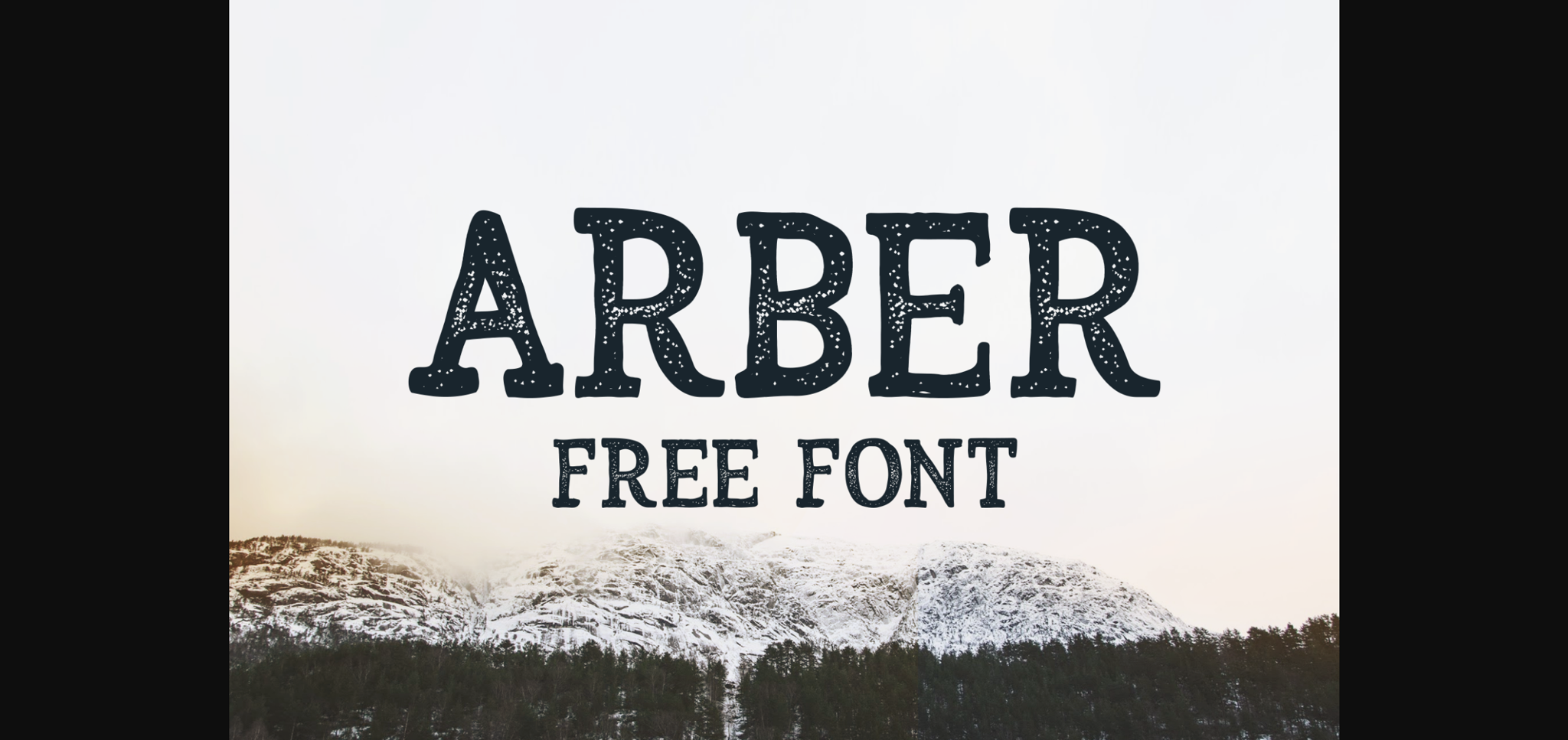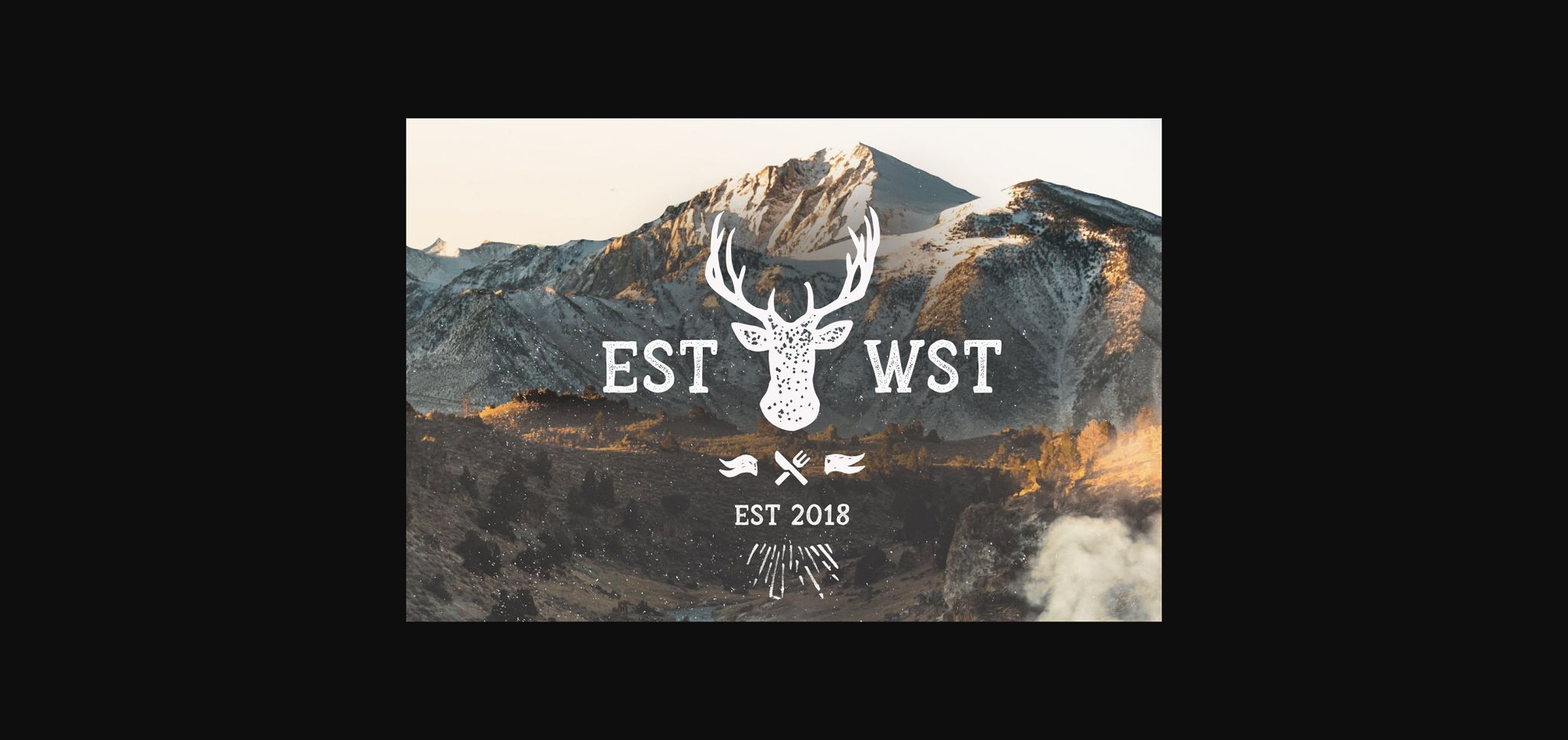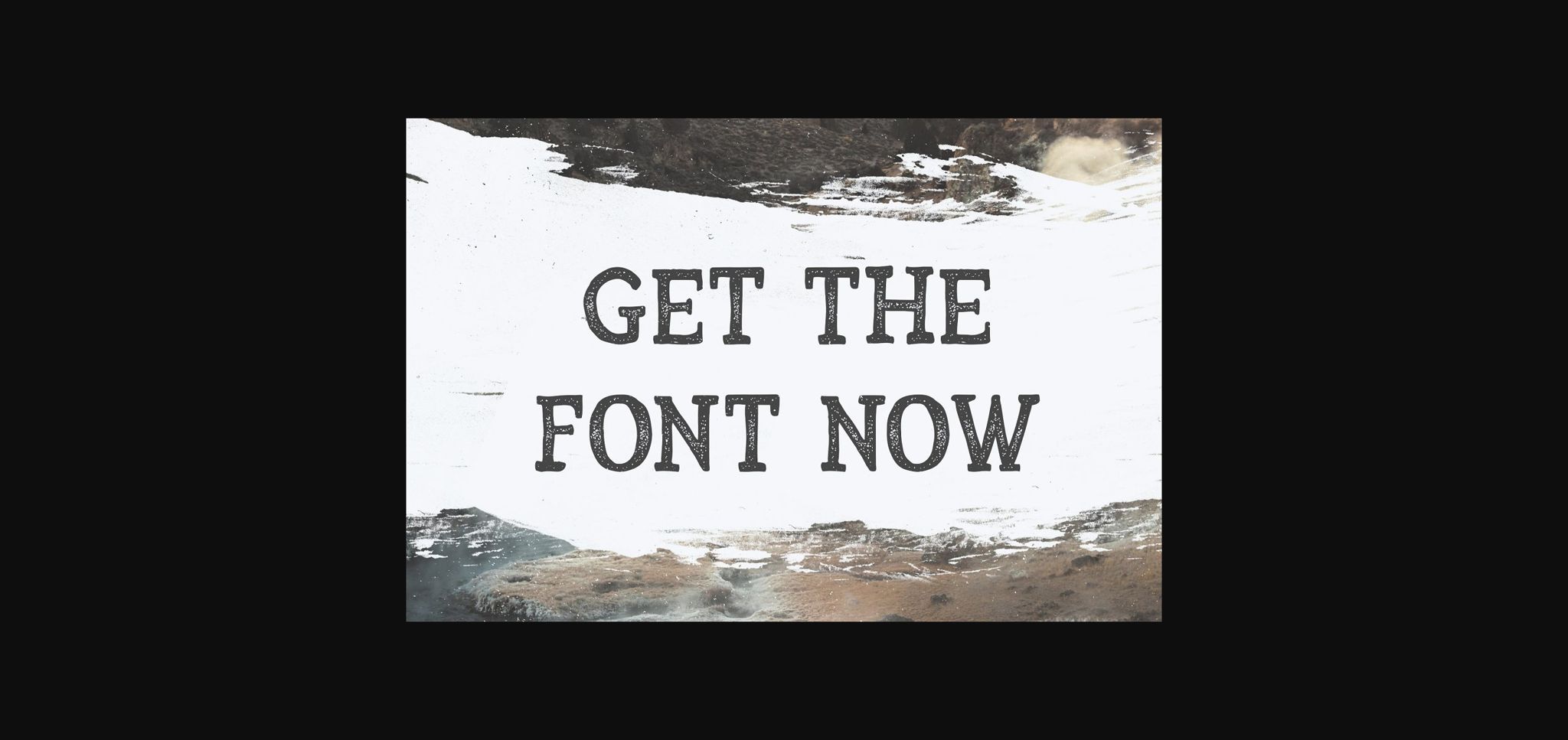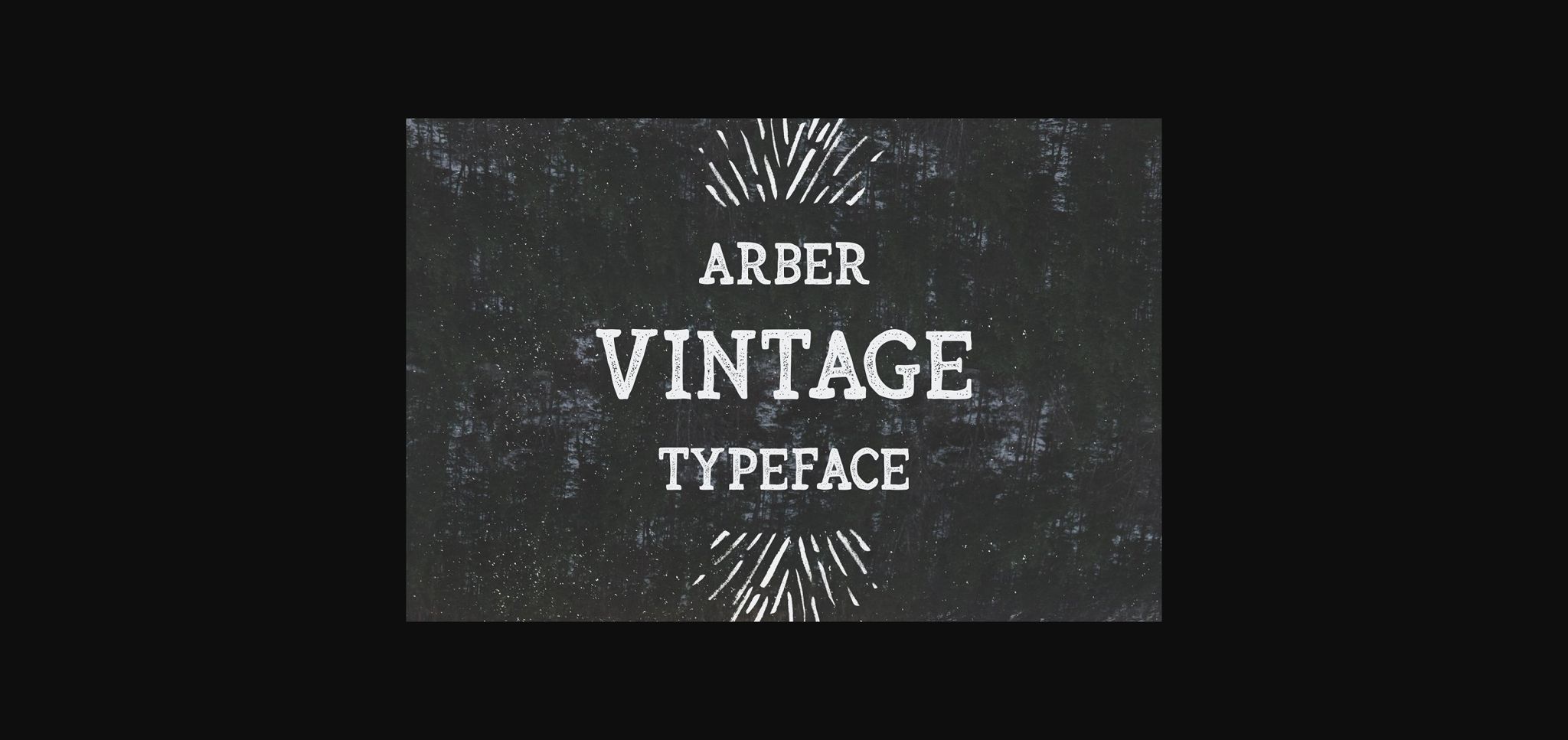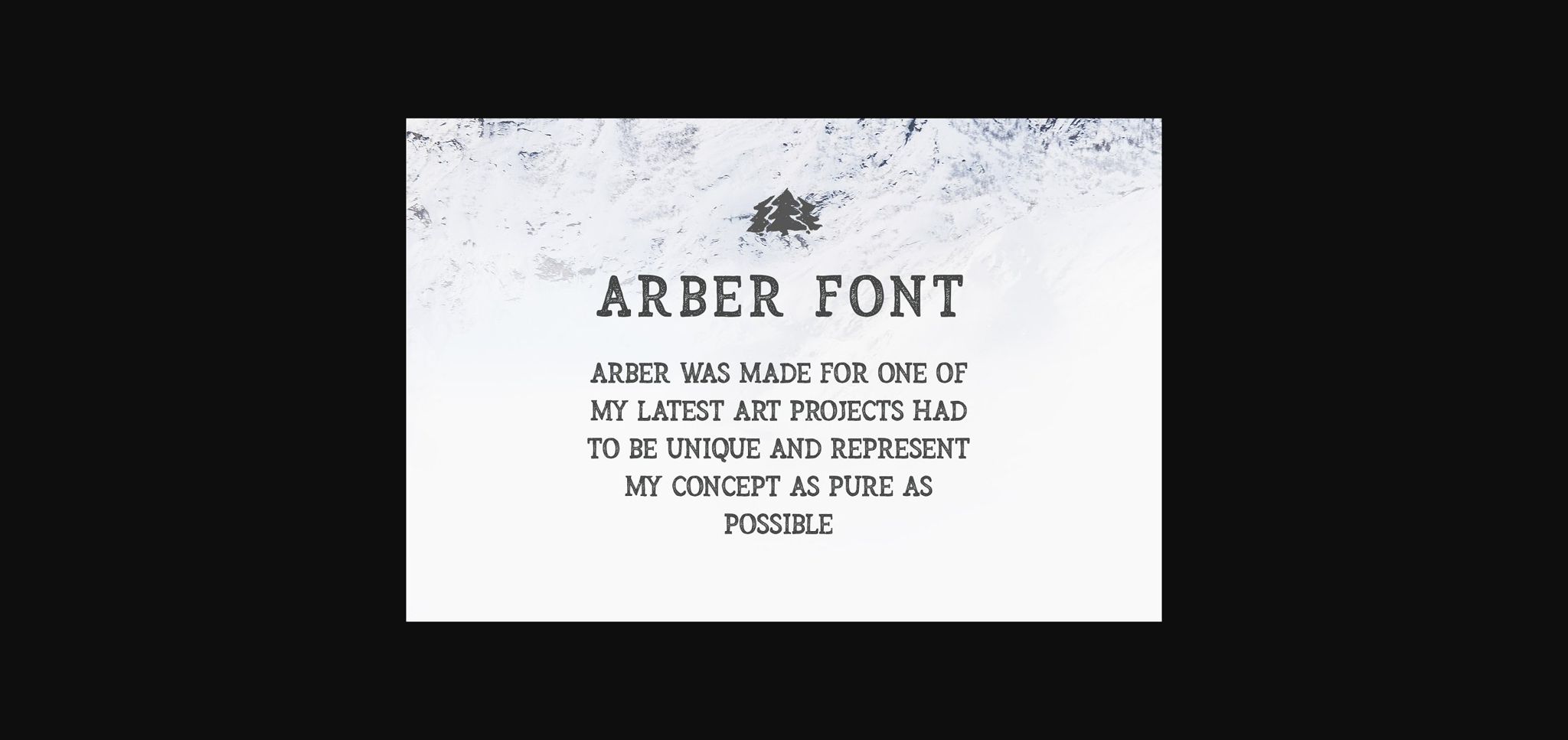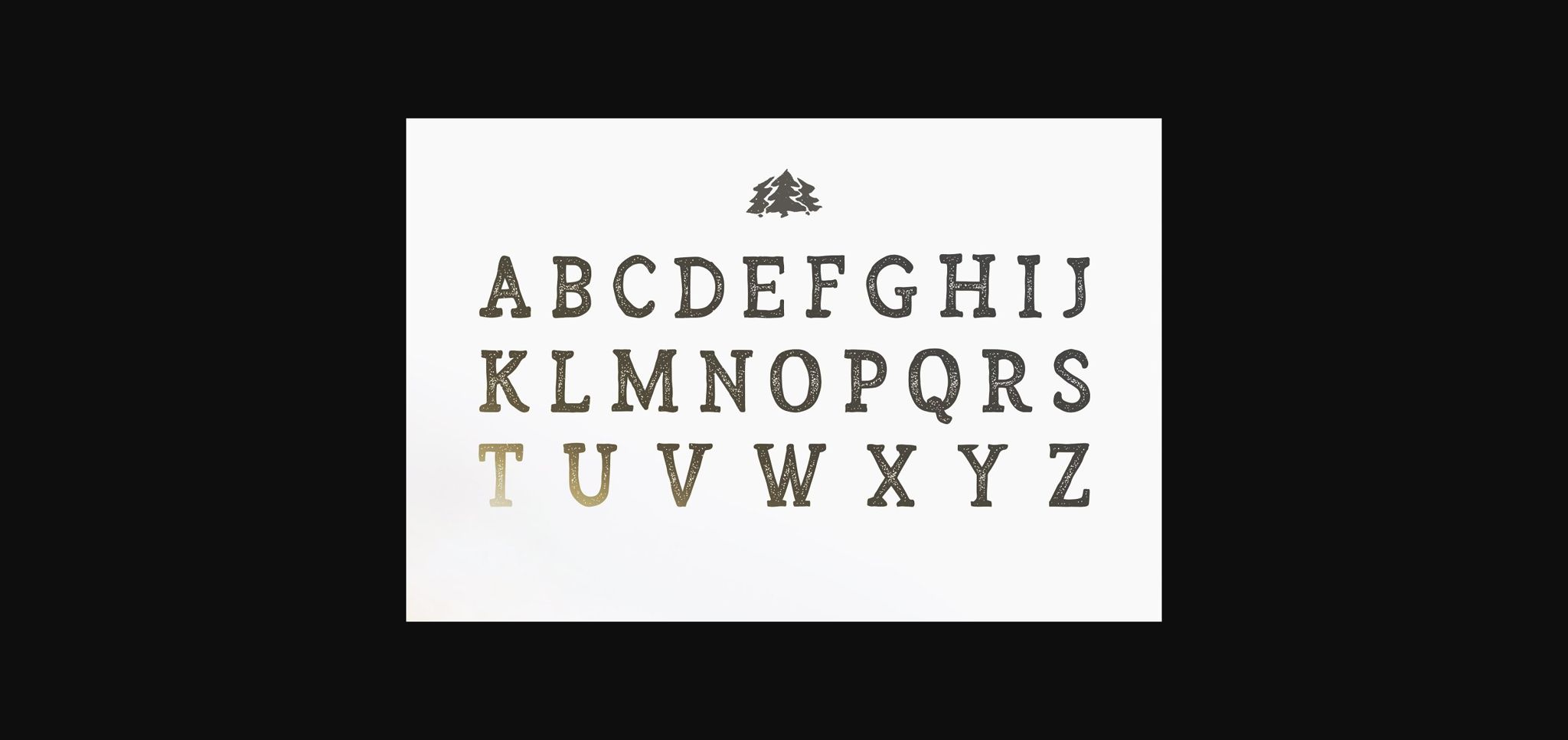
Arber Font
About Arber Font
Arber feels playfully nostalgic and delivers an incredible vintage aesthetic. This enchanting sans serif font will turn any creative idea into a true standout.